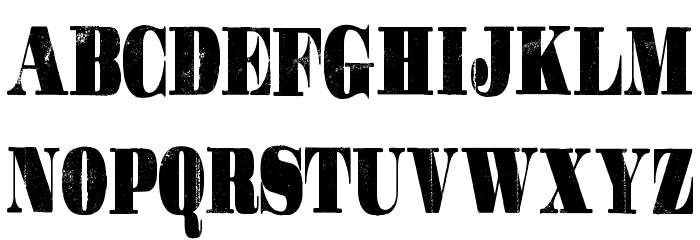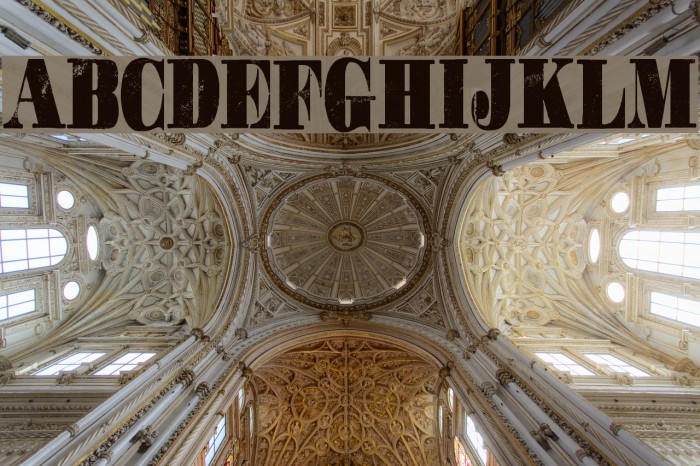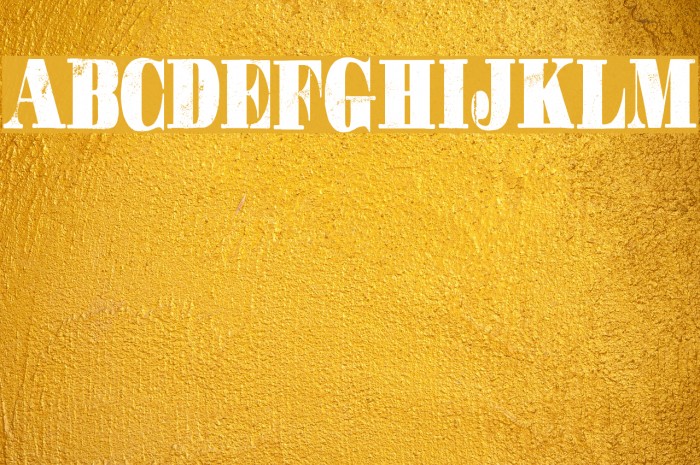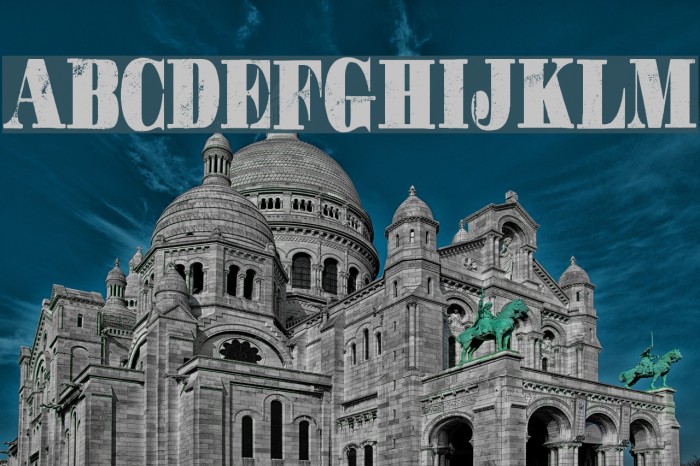
GOTCHA PERSONAL USE Font
This font features a bold, distressed style with a vintage aesthetic. The uppercase letters are prominent and heavily weighted, showcasing a rugged texture that gives each character a unique, worn appearance. The font's design is reminiscent of old western or industrial typefaces, making it ideal for projects that require a strong, impactful visual presence. The characters are evenly spaced, ensuring readability while maintaining their distinctive style. The overall look is both classic and decorative, suitable for creating eye-catching headlines or logos.
A bold, distressed font with a vintage, rugged aesthetic.
- Proposed Projects: Ideal for vintage-themed posters, logos, branding, and headlines.
- Overall Style: Vintage